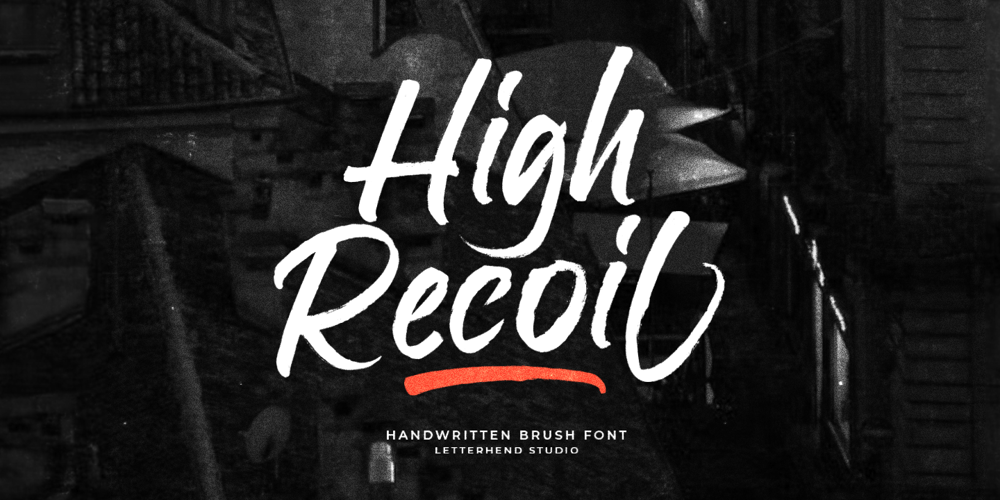
High Recoil Font Family was designed by Hendry Juanda and published by Letterhend. High Recoil contains 1 styles and family package options. High Recoil is a rough handwritten brush script with organic textured. This font is suitable to be applied especially in logo, and the other various formal forms such as invitations, labels, logos, magazines, books, greeting / wedding cards, packaging, fashion, make up, stationery, novels, labels or any type of advertising purpose.Features : Uppercase & lowercase Numbers and punctuation Alternates & Ligatures Multilingual PUA encoded We highly recommend using a program that supports OpenType features and Glyphs panels like many of Adobe apps and Corel Draw, so you can see and access all Glyph variations.